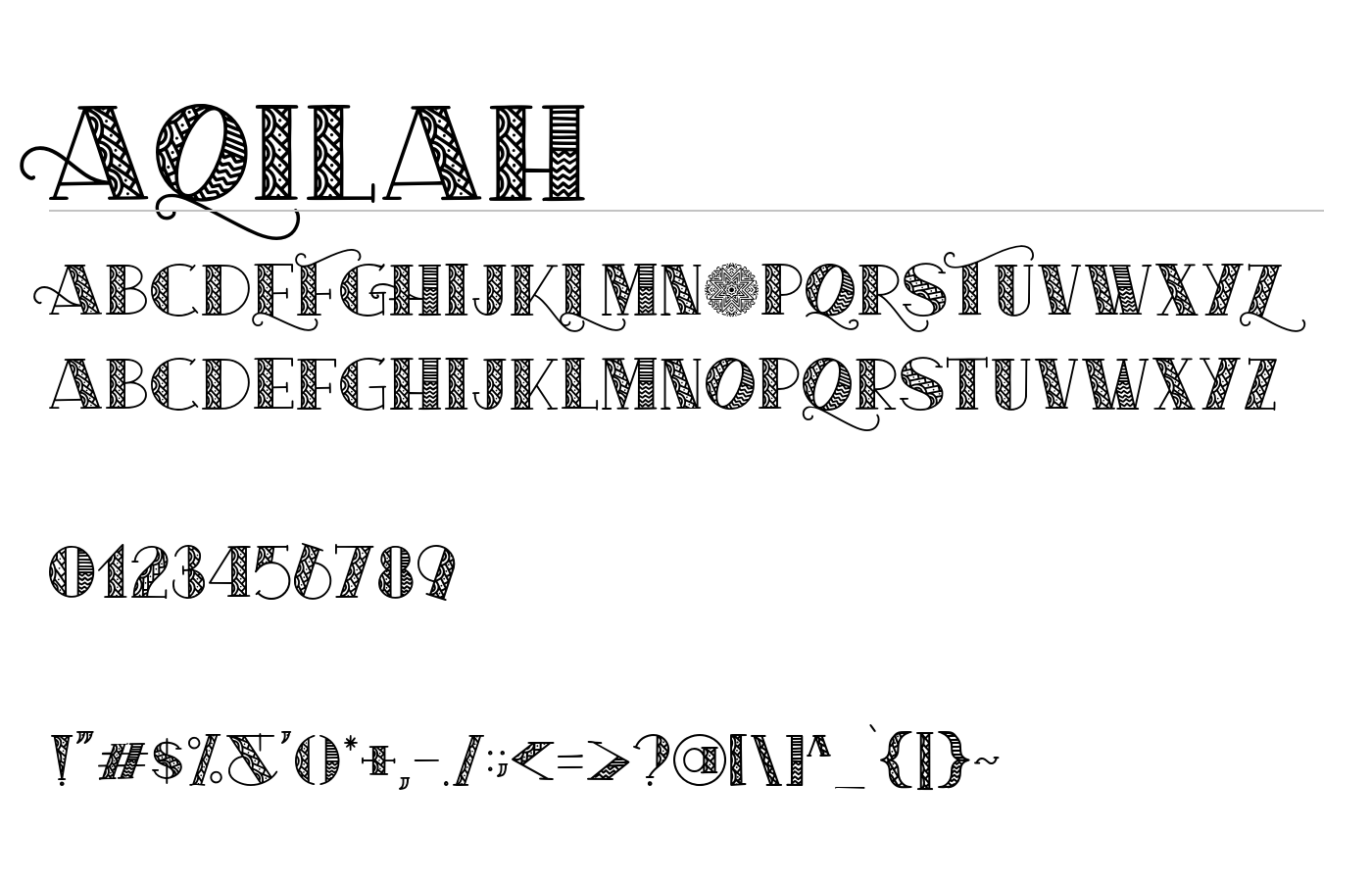
Aqilah is a decorative serif font featuring intricate patterns within its letterforms and elegant, swirling flourishes on selected characters. It combines a bold, artistic flair with a vintage-inspired structure, making it ideal for eye-catching headlines, logos, and creative projects that seek a unique, stylish touch. This font’s playful yet sophisticated personality works beautifully for packaging, branding, and editorial designs aiming for a memorable and ornamental look.
Aqilah Font